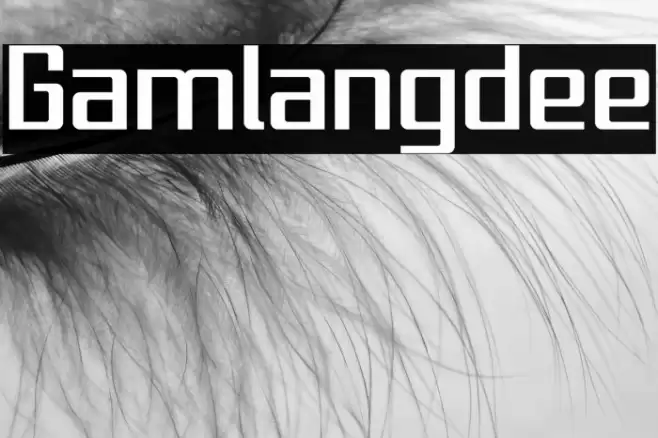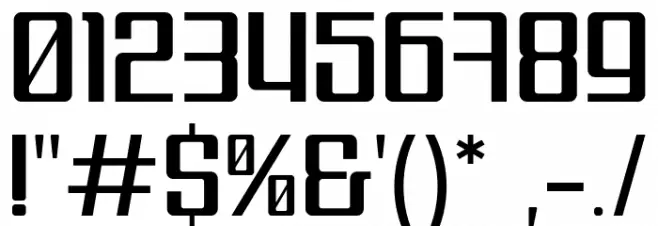
Gamlangdee Font
Gamlangdee Description
This font features a modern and geometric design with a strong emphasis on clean lines and a structured appearance. The uppercase letters are bold and uniform, with a squared-off look that conveys a sense of stability and strength. The lowercase letters maintain a similar geometric style, offering a cohesive and harmonious appearance throughout the typeface. The numerals are distinct and easy to read, following the same geometric principles as the letters. Special characters are well-integrated, ensuring versatility in various design contexts. Overall, this font is ideal for projects that require a contemporary and professional aesthetic.
A modern, geometric font with clean lines and a structured appearance from Regular fonts.
- Font: Gamlangdee
- Proposed Projects: Ideal for branding, advertising, digital interfaces, and editorial design.
- Use Case: Headlines, Logos, Digital interfaces